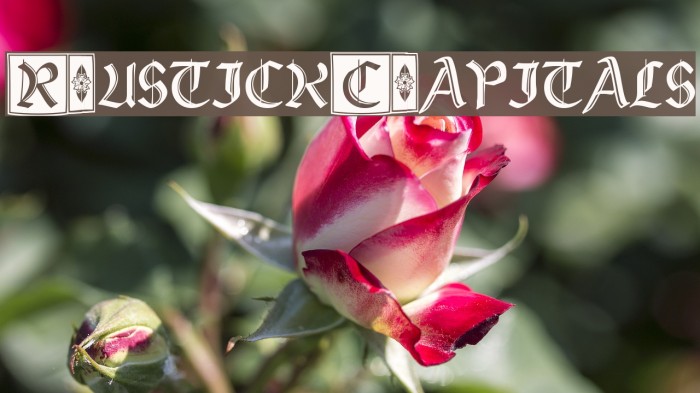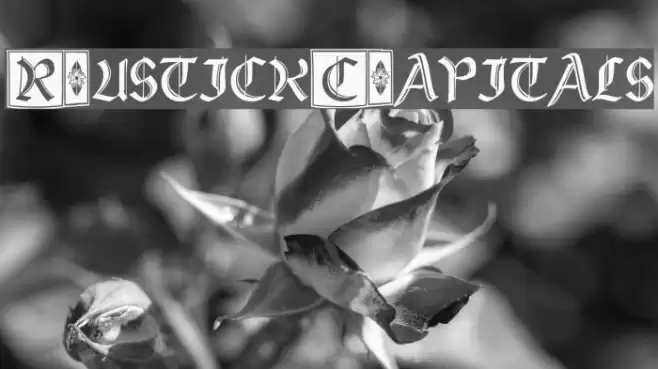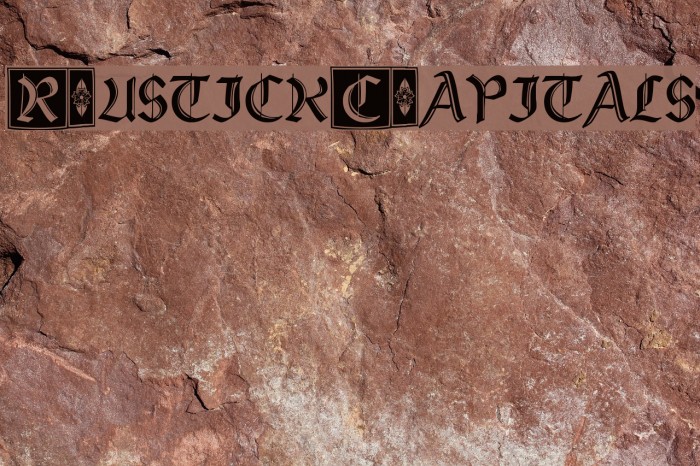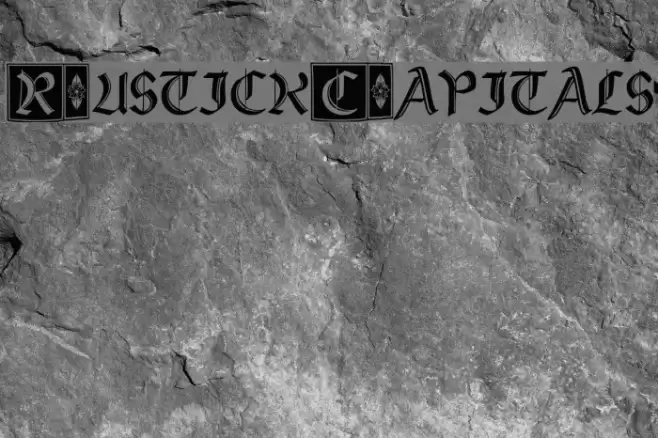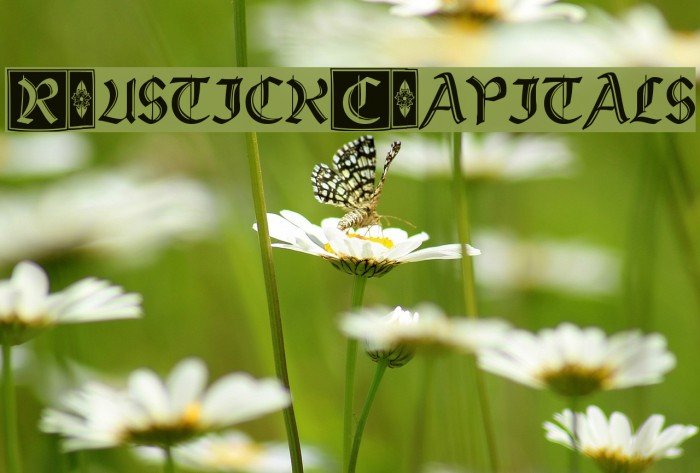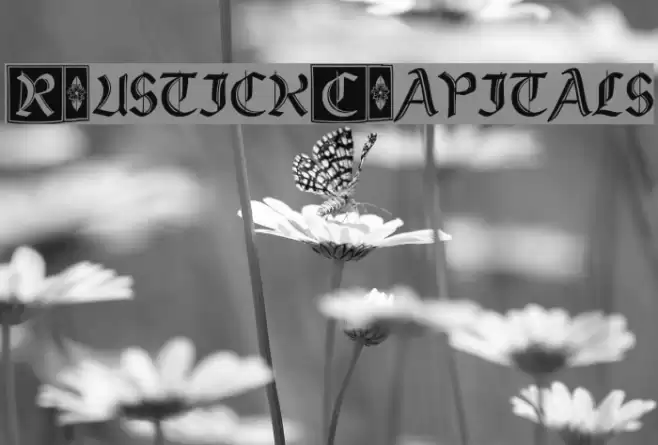
Rustick_Capitals Font
Rustick_Capitals Description
This font features a bold and striking blackletter style, reminiscent of medieval script. The characters are ornate, with sharp, angular lines and intricate details that give it a historical and dramatic appearance. The uppercase letters are particularly elaborate, with flourishes and embellishments that enhance their visual impact. The font's design is consistent across all characters, maintaining a cohesive and unified look. Its decorative nature makes it ideal for projects that require a touch of elegance and tradition.
| Overall Style | Vintage |
| Use Case | Logos, Headlines, Decorative text |
| Proposed Projects | Ideal for historical documents, invitations, posters, and branding that require a classic and elegant touch. |